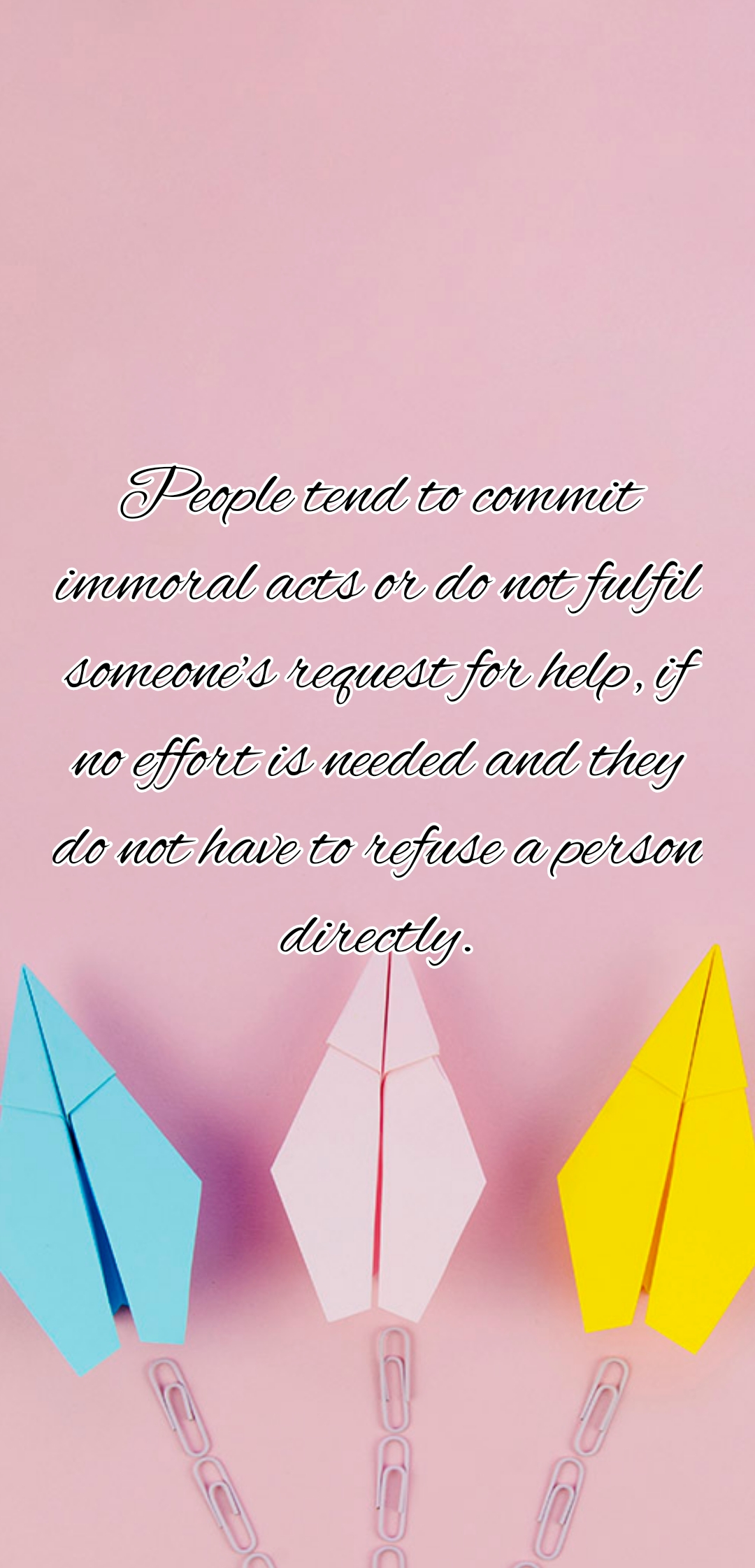
Brainlove Script is a stylish calligraphy font featuring a varied baseline, smooth lines, a classic and elegant touch. It can be used for various …
Brainlove Script Font
Brainlove Script is a stylish calligraphy font featuring a varied baseline, smooth lines, a classic and elegant touch. It can be used for various …
Brainlove Script Font